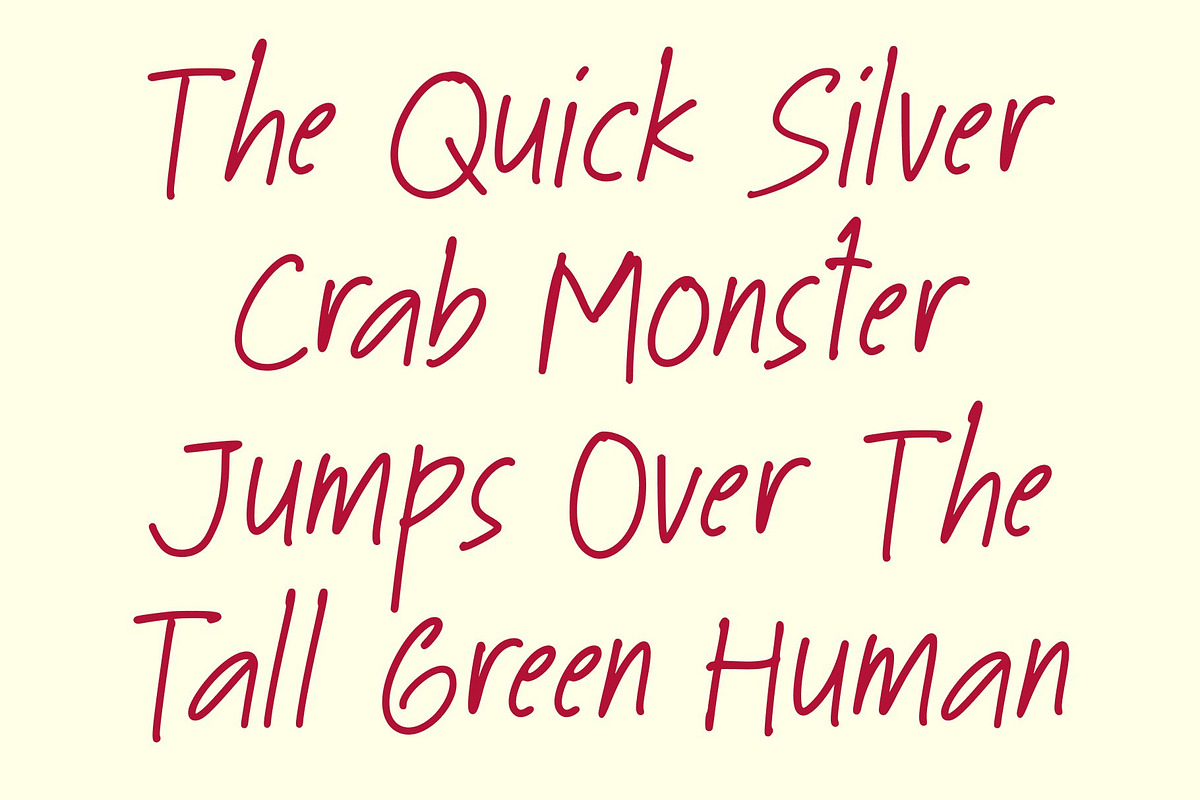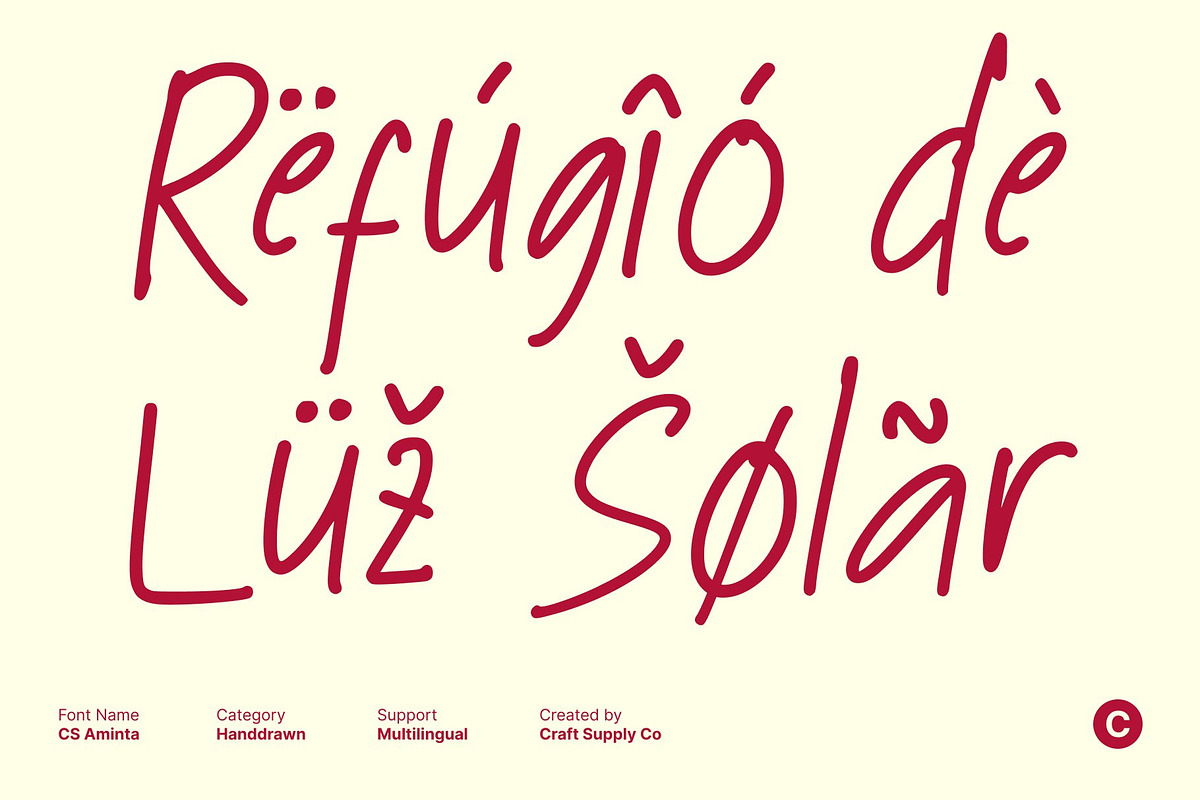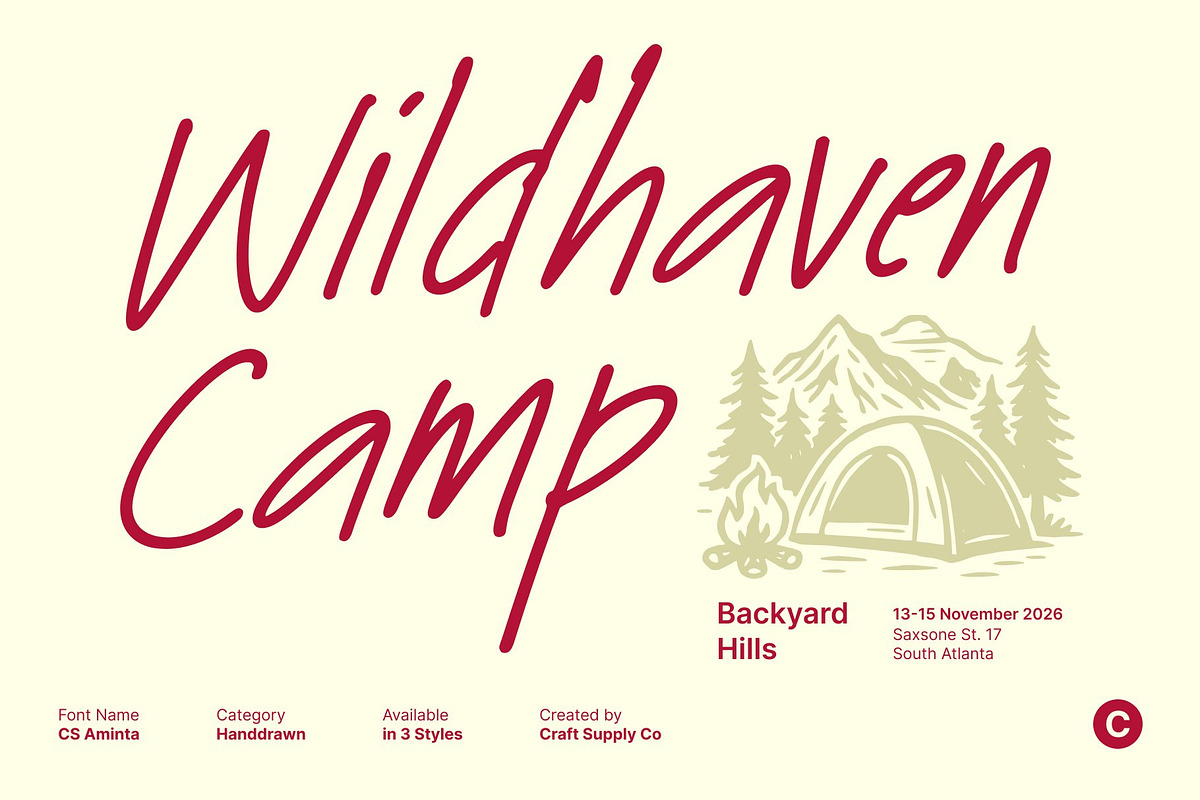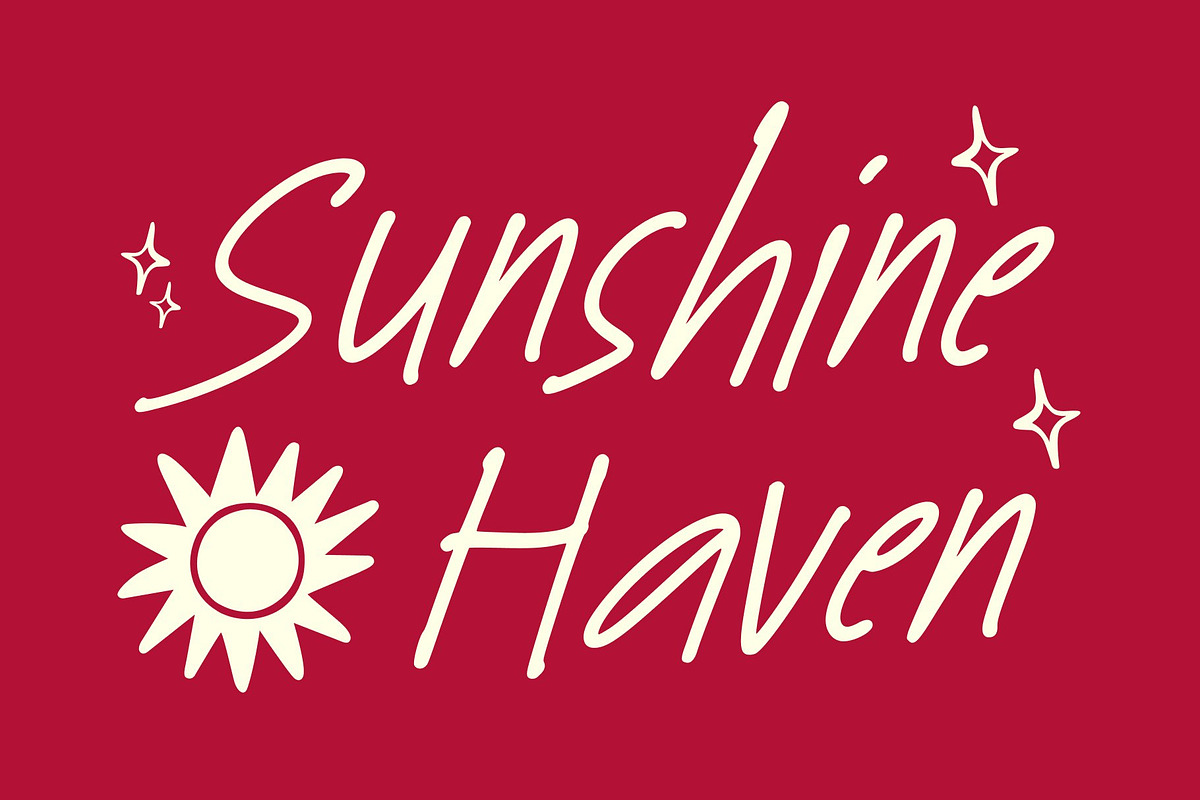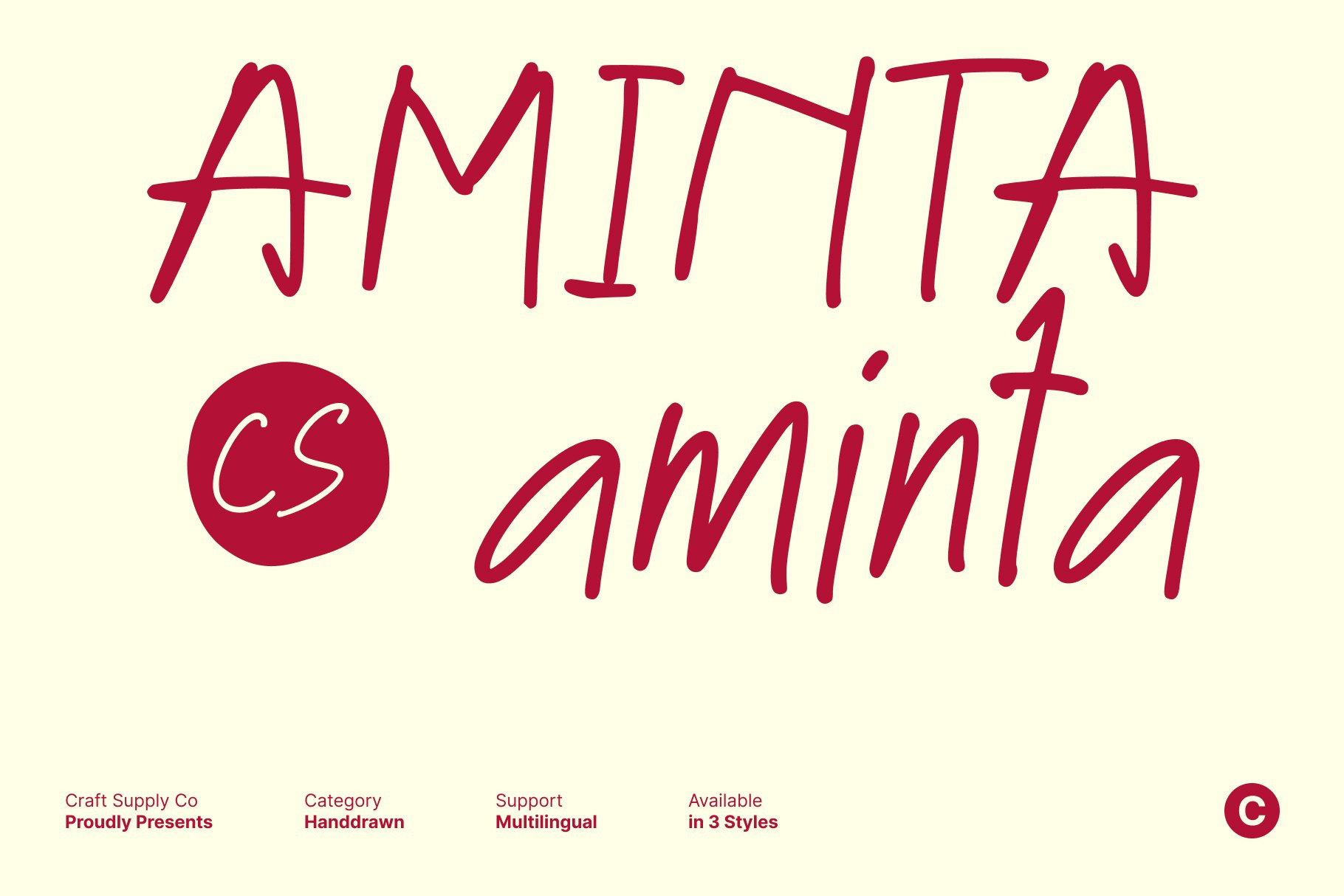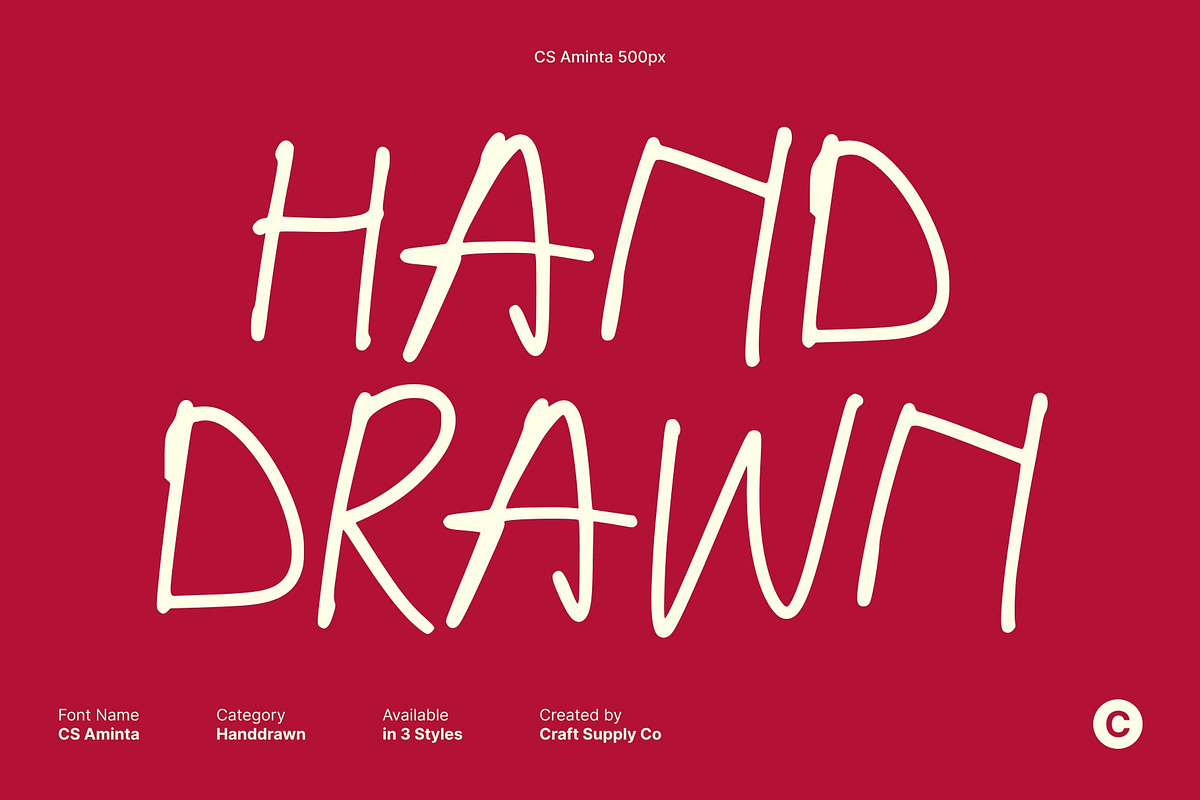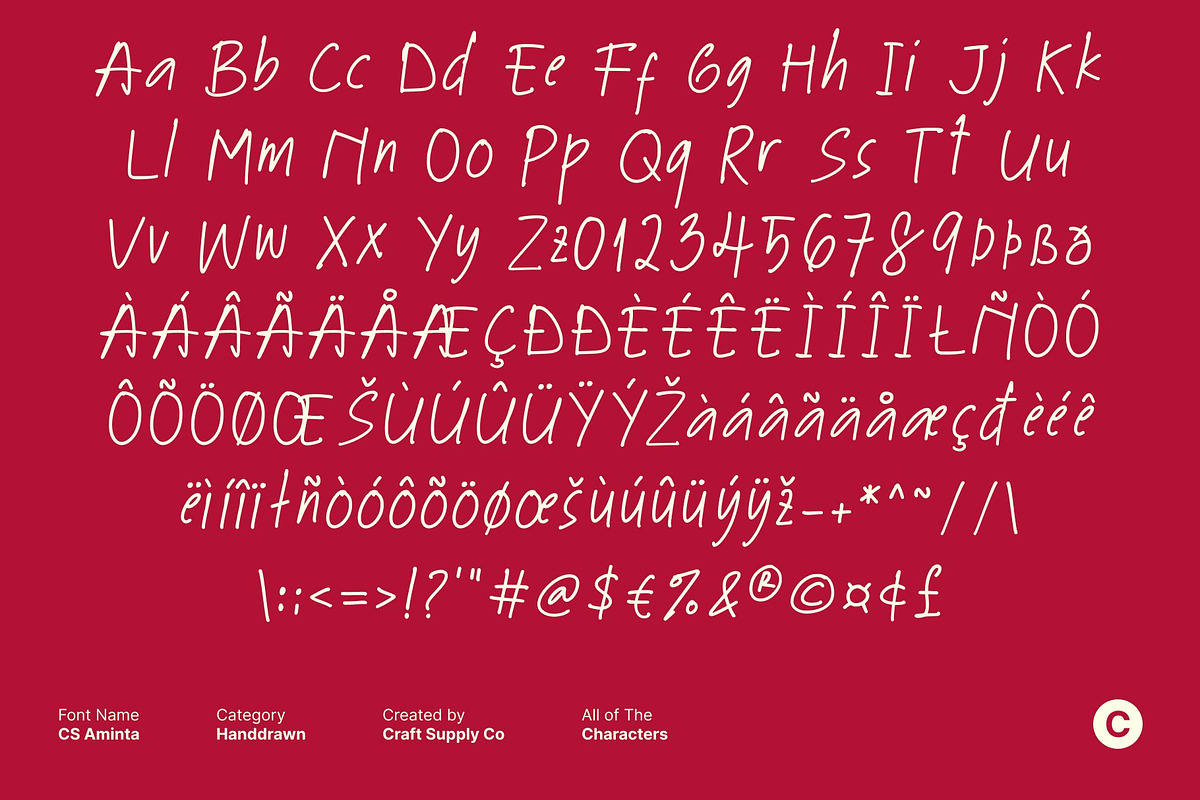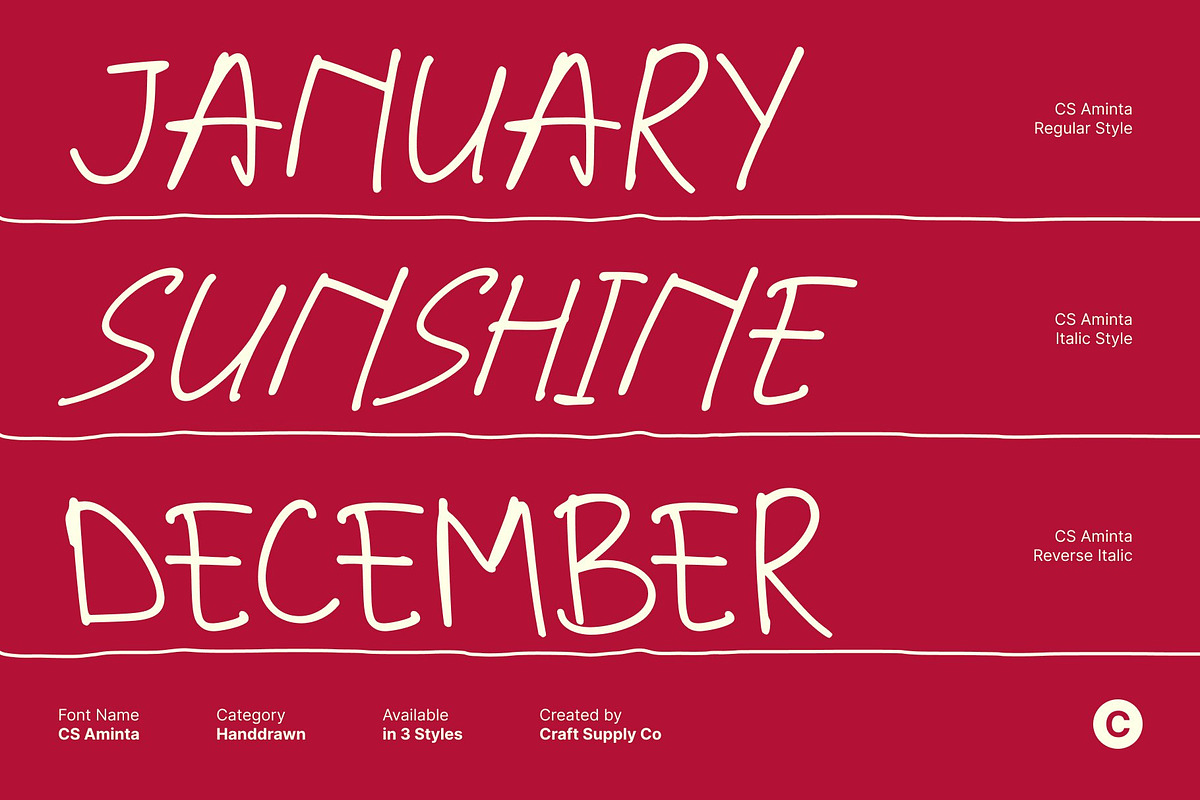
CS Aminta – Handwriting Font
CS Aminta – Natural Handwriting Font with Personal Charm
Genuine Pen-Stroke Texture with Warm Personality This font is an authentic handwriting designed to capture the natural flow and charm of real pen strokes. Its relaxed shapes and subtle variations create a warm, personal feel that mirrors genuine handwritten notes. This organic touch makes this font perfect for designers who want to bring sincerity, approachability, and heartfelt expression into their typography.
Smooth, Casual Strokes for a Friendly Look Every character in this font follows a gentle, free-flowing motion that enhances its casual and welcoming aesthetic. The slightly imperfect curves give the font an honest, human quality making it stand out from more polished or formal scripts. Whether used for titles or short phrases, this font adds an engaging, friendly tone that feels authentic and relatable.
Ideal for Greeting Cards and Personal Invitations With its warm personality, this font shines in greeting cards, invitations, and other personal stationery designs. Its handwritten charm enhances emotional messages, making them feel more heartfelt and intimate
Perfect for Casual Branding and Creative Projects This font also works beautifully in casual branding, lifestyle logos, and small-business identities. Its natural handwriting style brings a relaxed, easy-going vibe, ideal for cafes, craft brands, handmade products, or personal blogs. Whether used in packaging, social media designs, or promotional materials, this font adds authenticity and playful charm to any creative project.